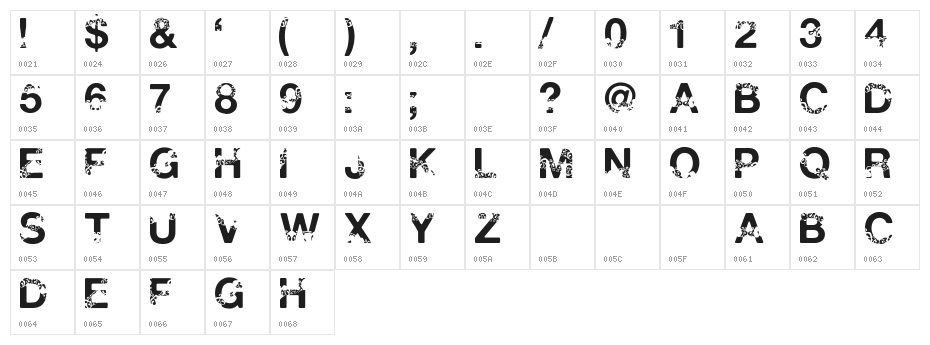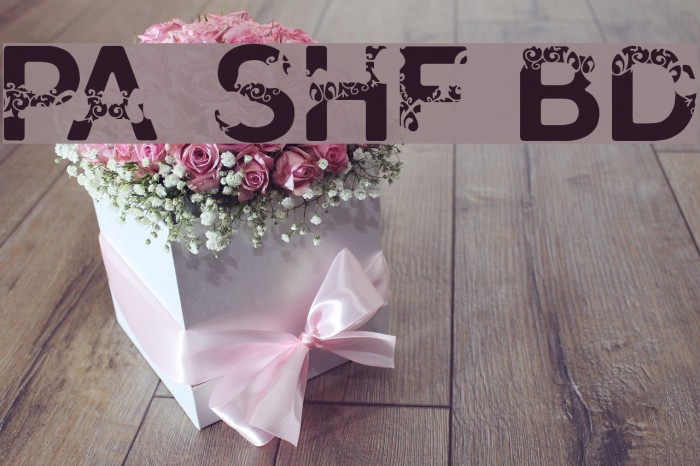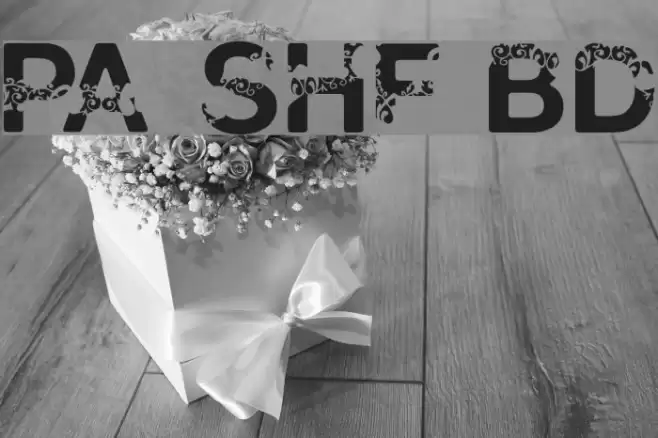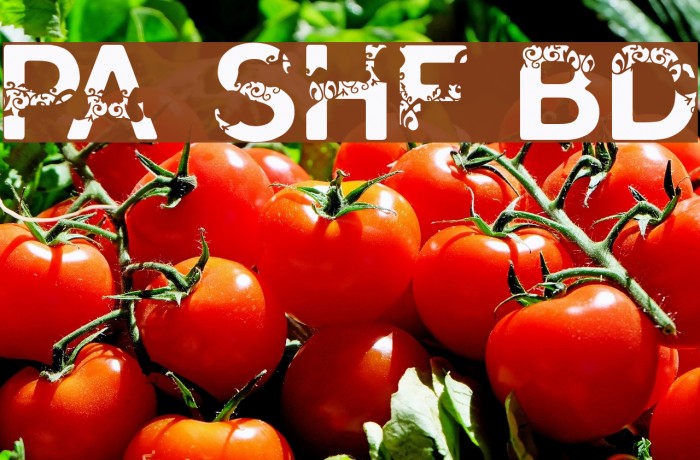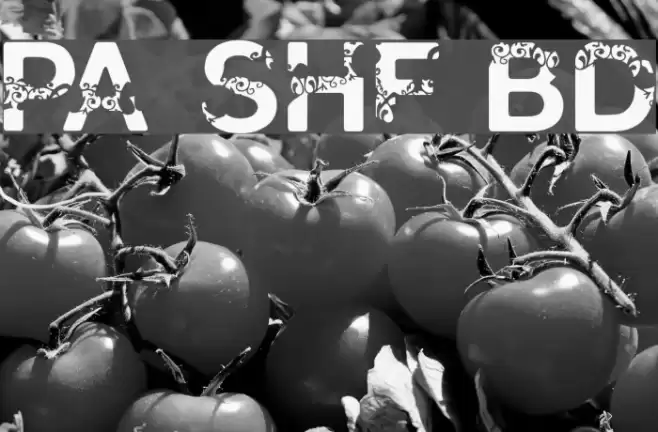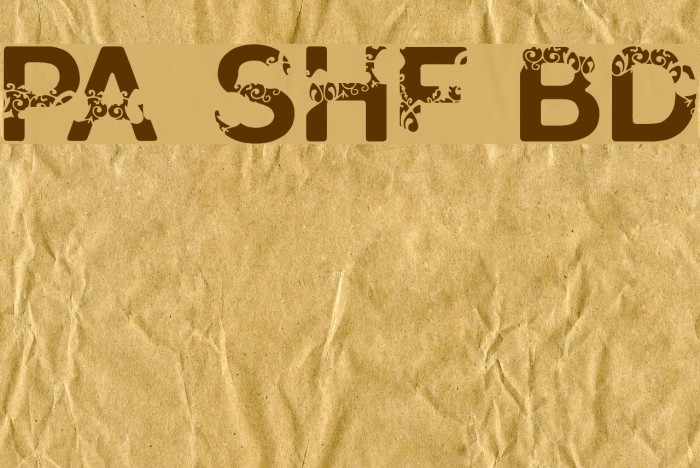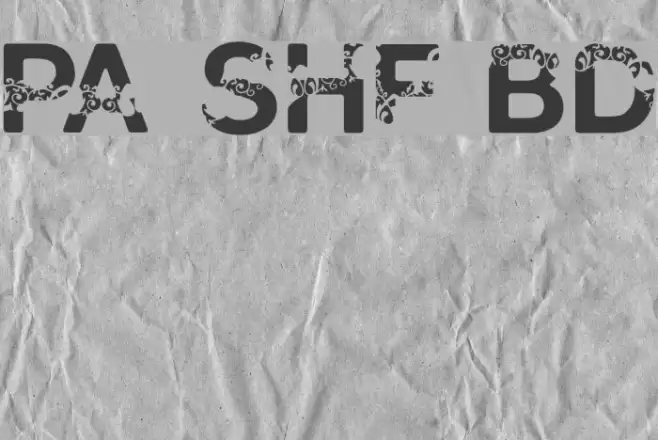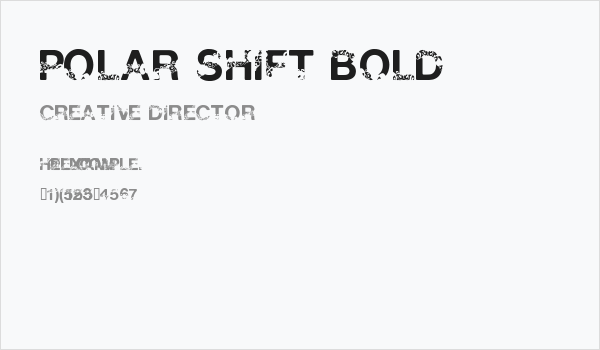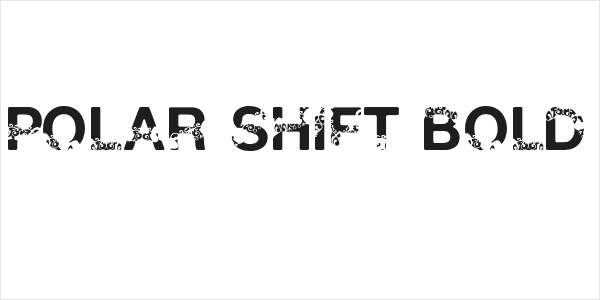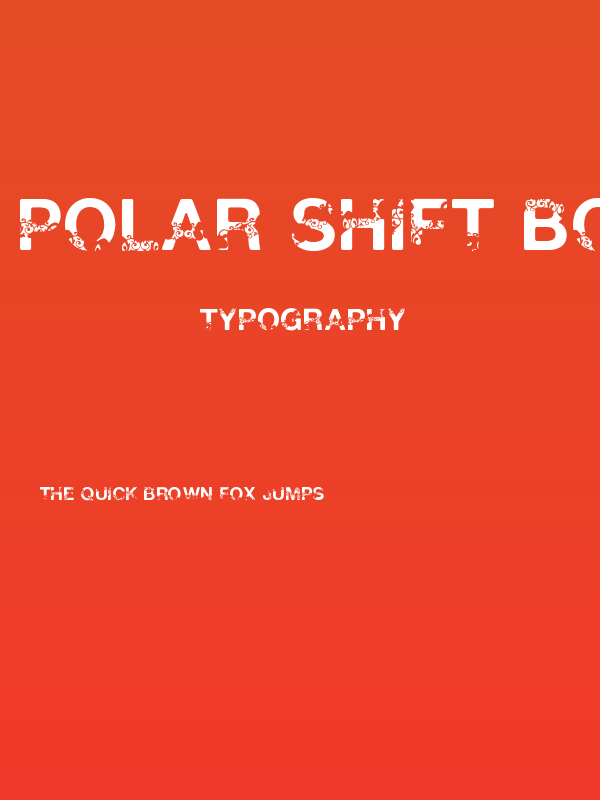
Polar Shift Bold Font
Polar Shift Bold Description
This font features a bold and striking design with a unique decorative pattern that appears to be inspired by natural elements or abstract shapes. The letters are bold and substantial, making them stand out with a strong presence. The decorative elements are integrated into the characters, creating a visually interesting texture that adds depth and complexity. The uppercase and lowercase letters maintain a consistent style, ensuring readability while still being visually engaging. The numbers and special characters follow the same design principles, making the font versatile for various uses.
| Proposed Projects | Ideal for creative projects such as posters, album covers, branding materials, and any design that requires a bold statement. |